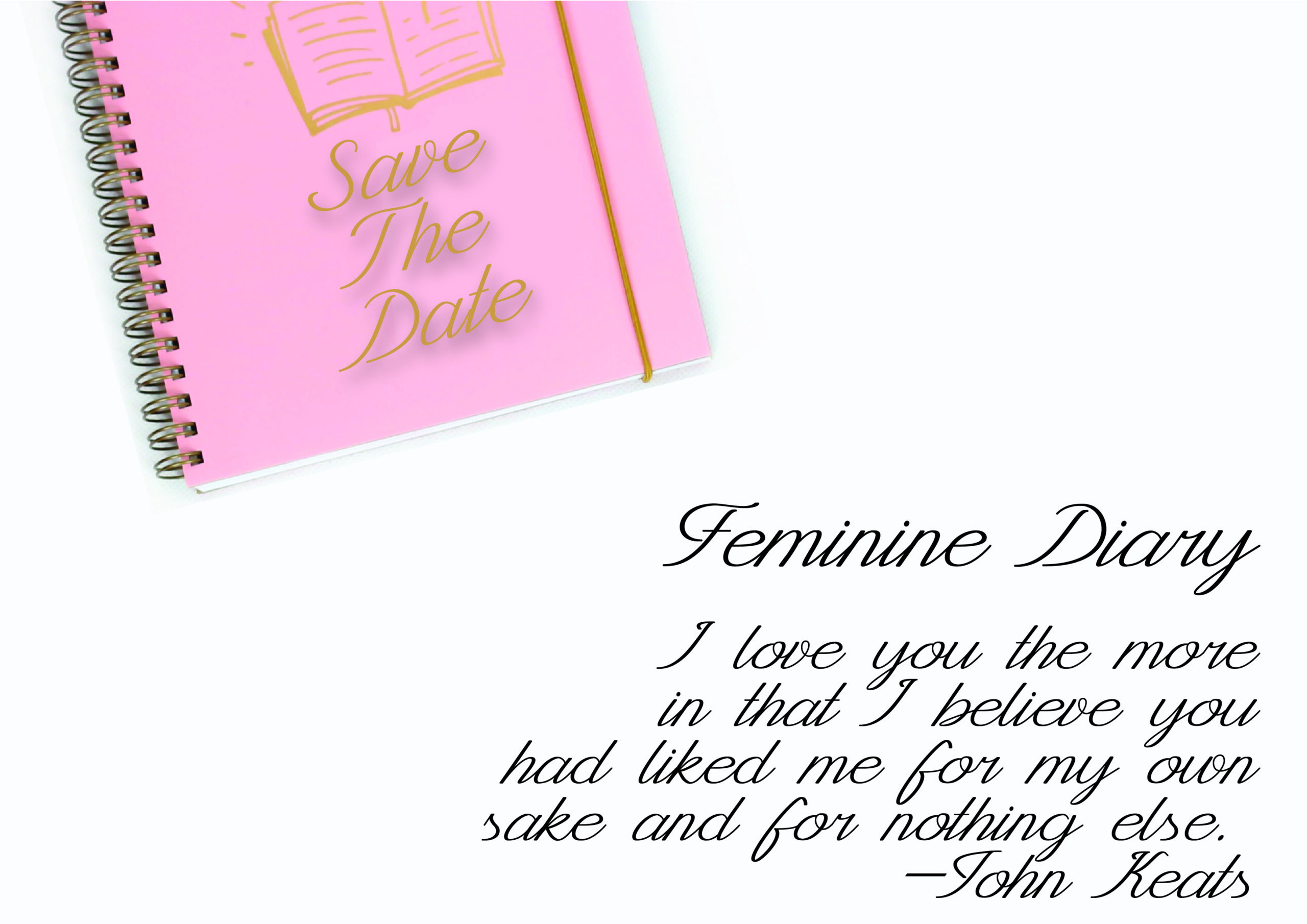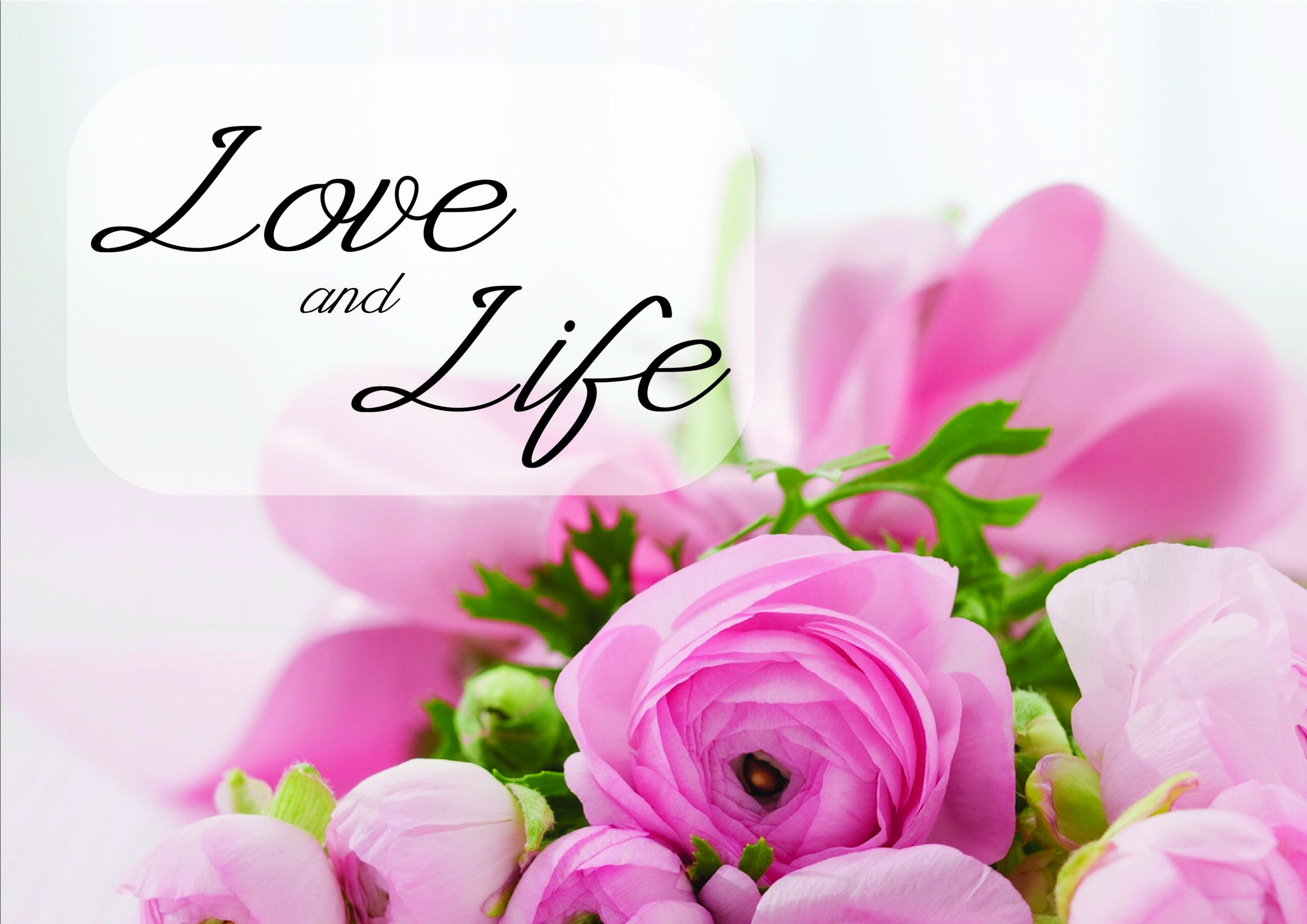
Rabiole Font
About Rabiole Font
Rabiole is a beautiful, modern calligraphy font that can be used in a number of different project types. This font includes tons of characters so you can make truly impactful and stylish designs.